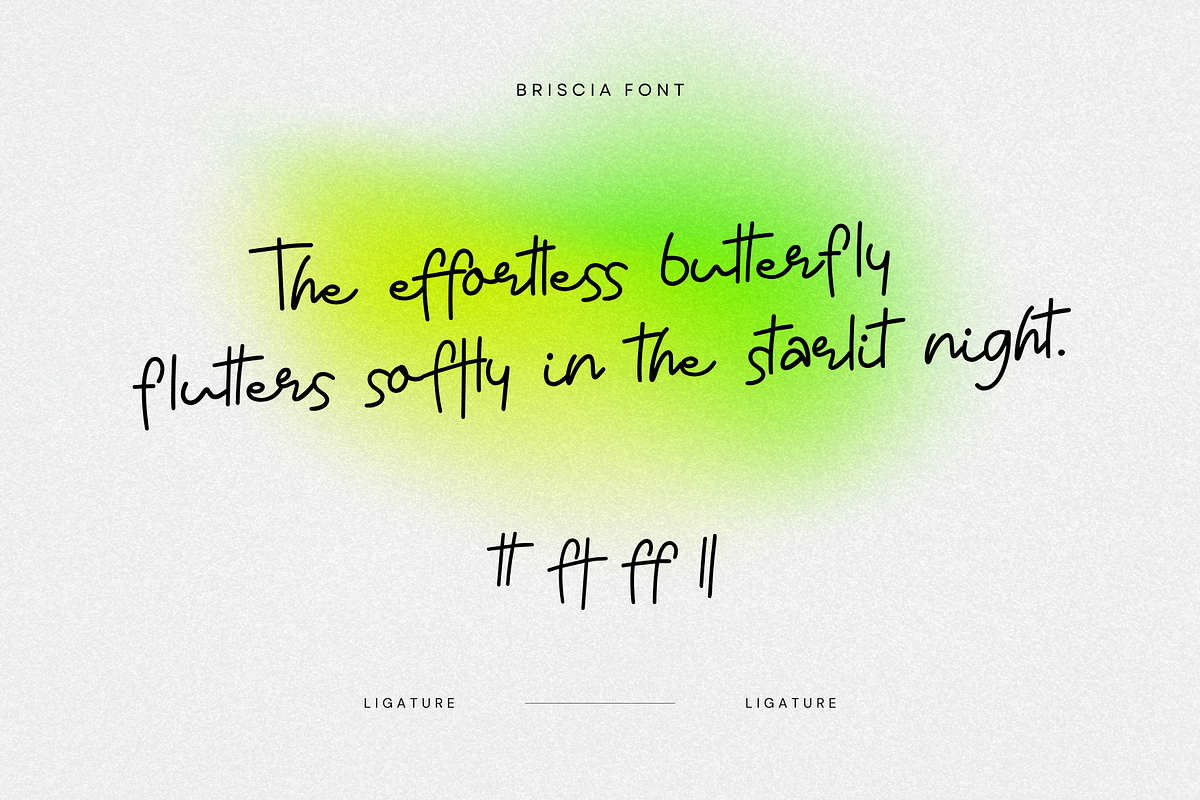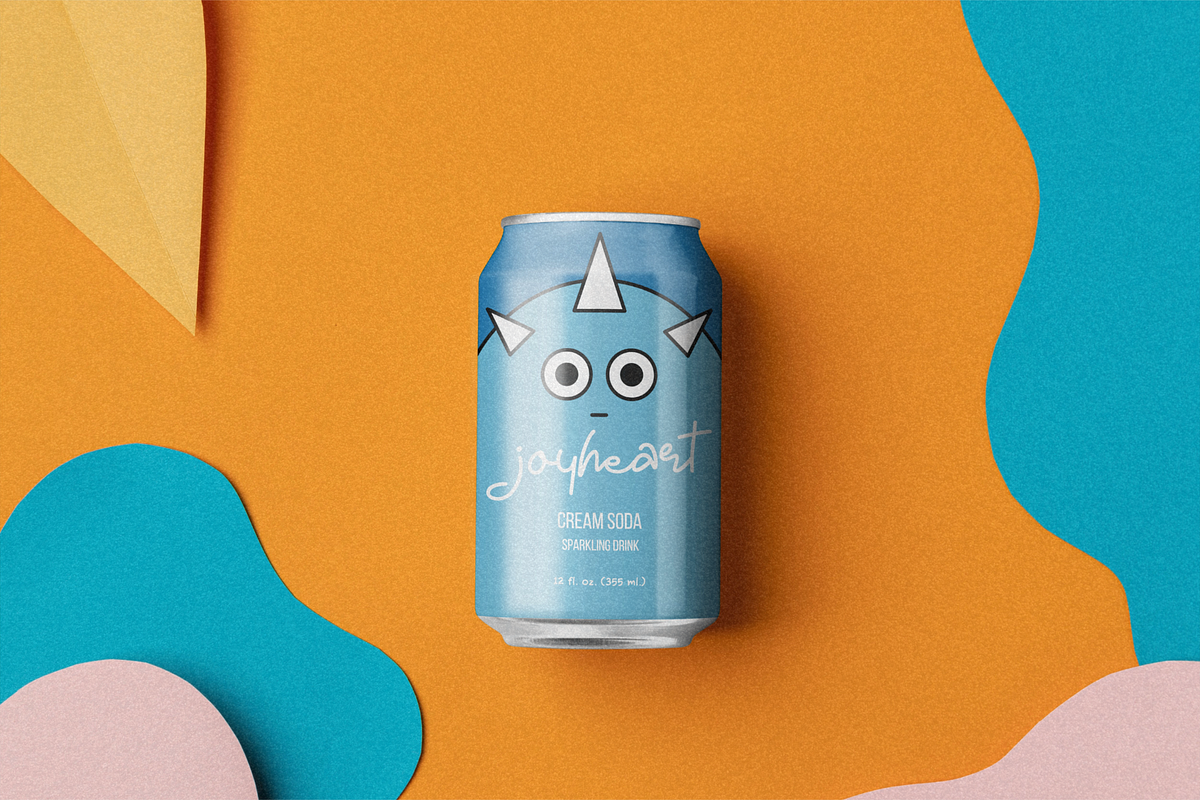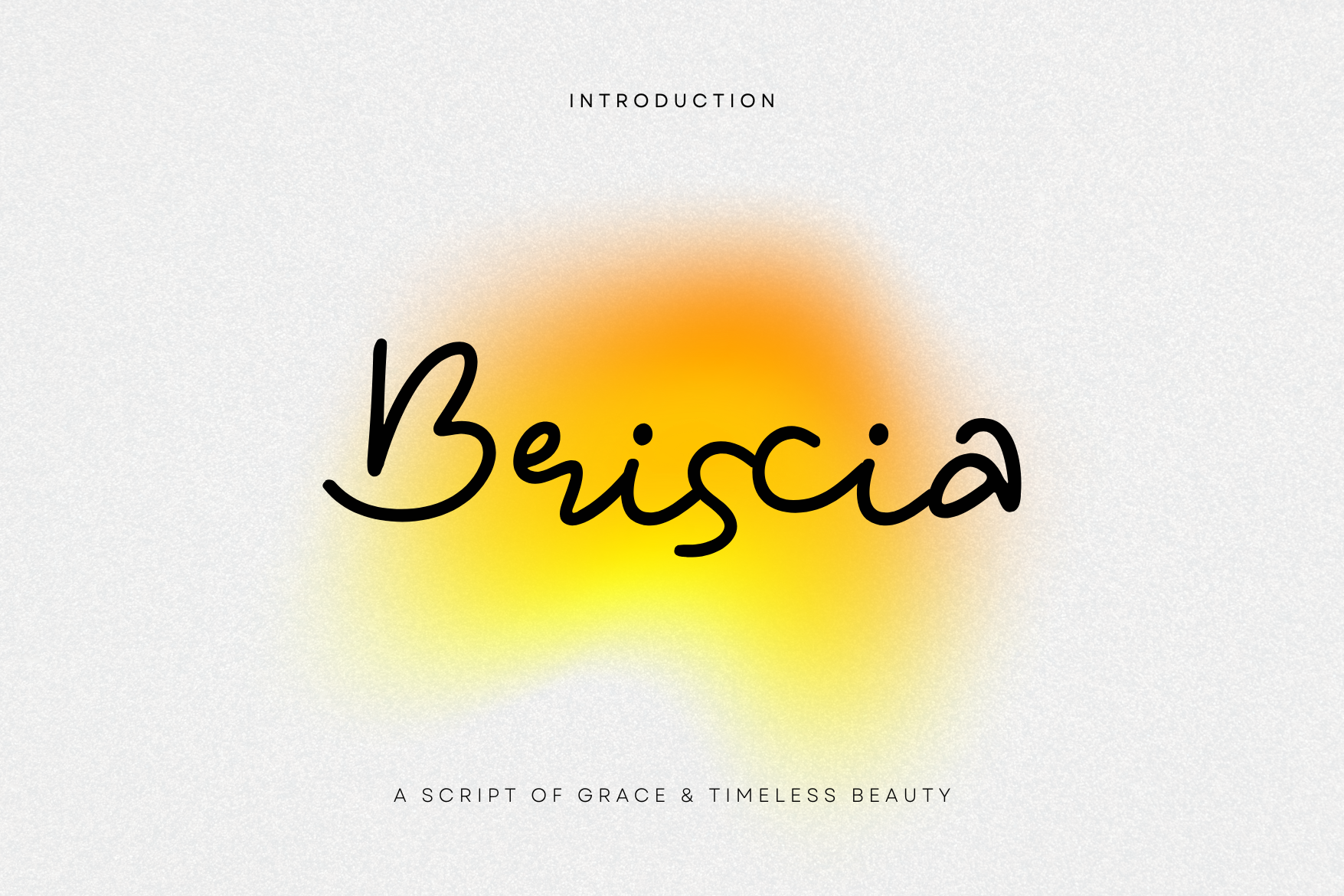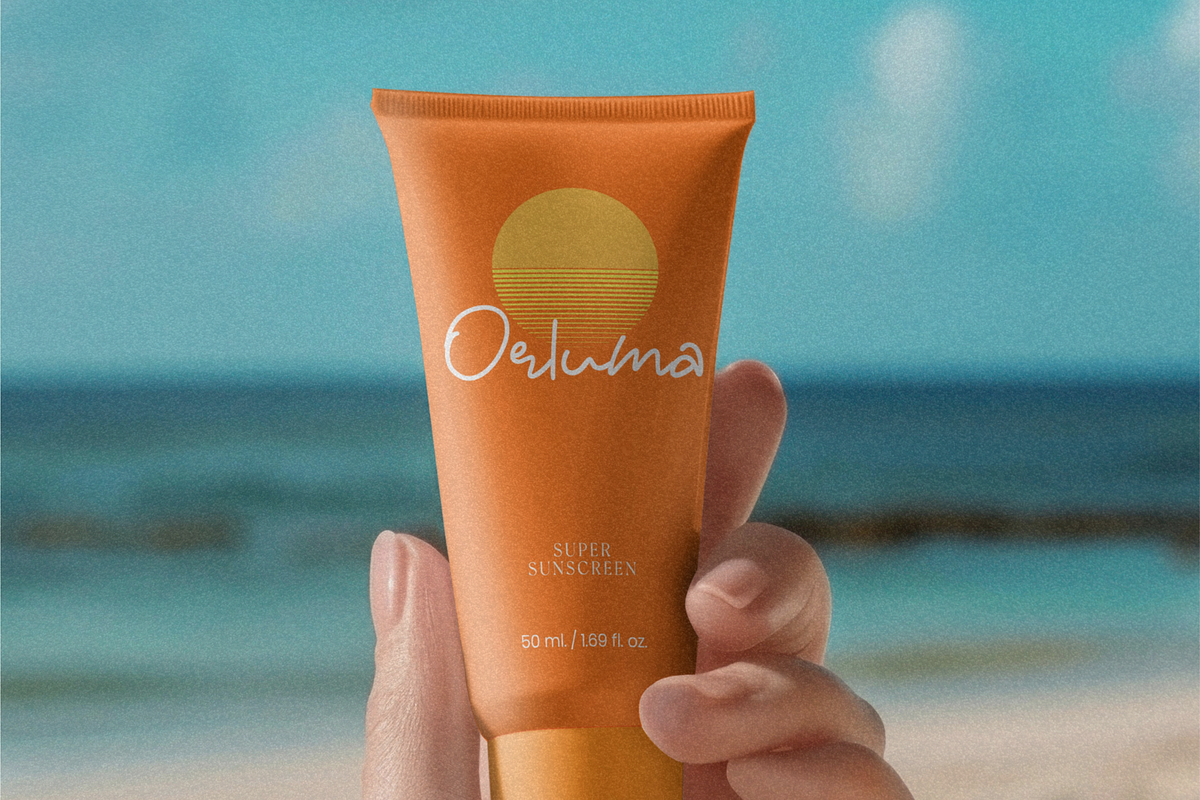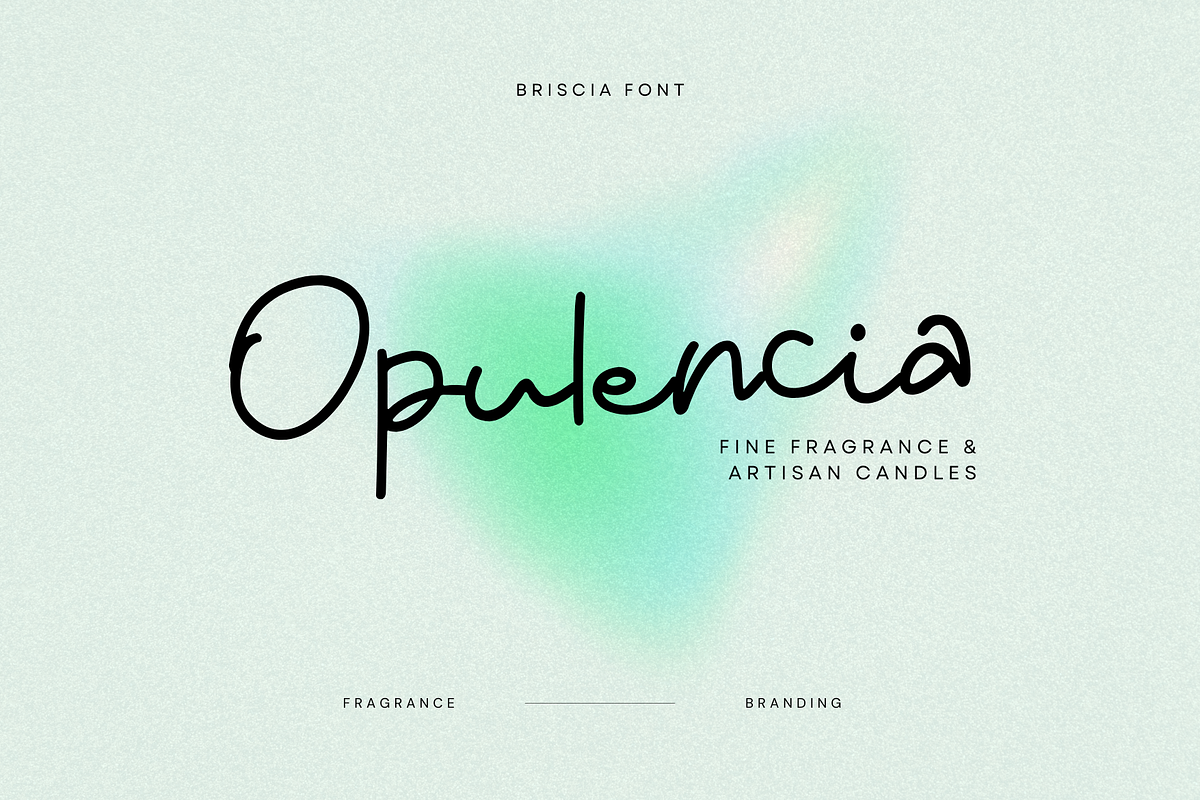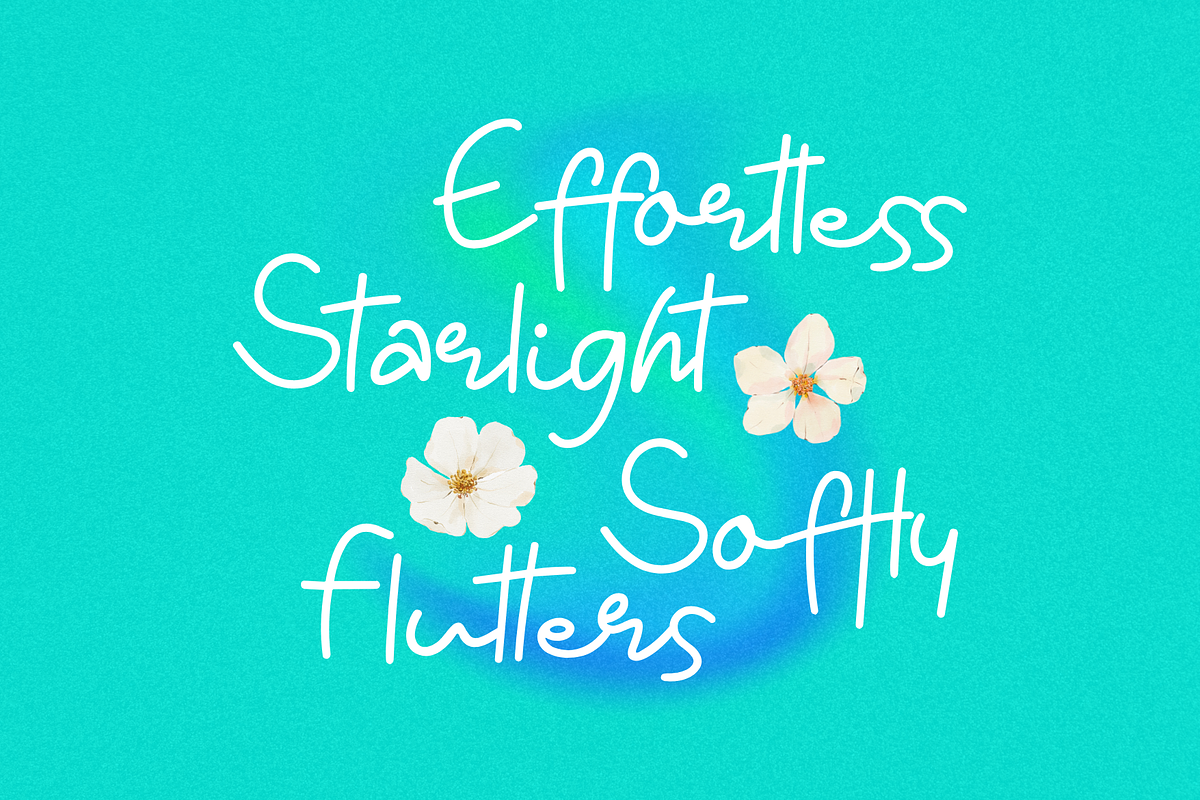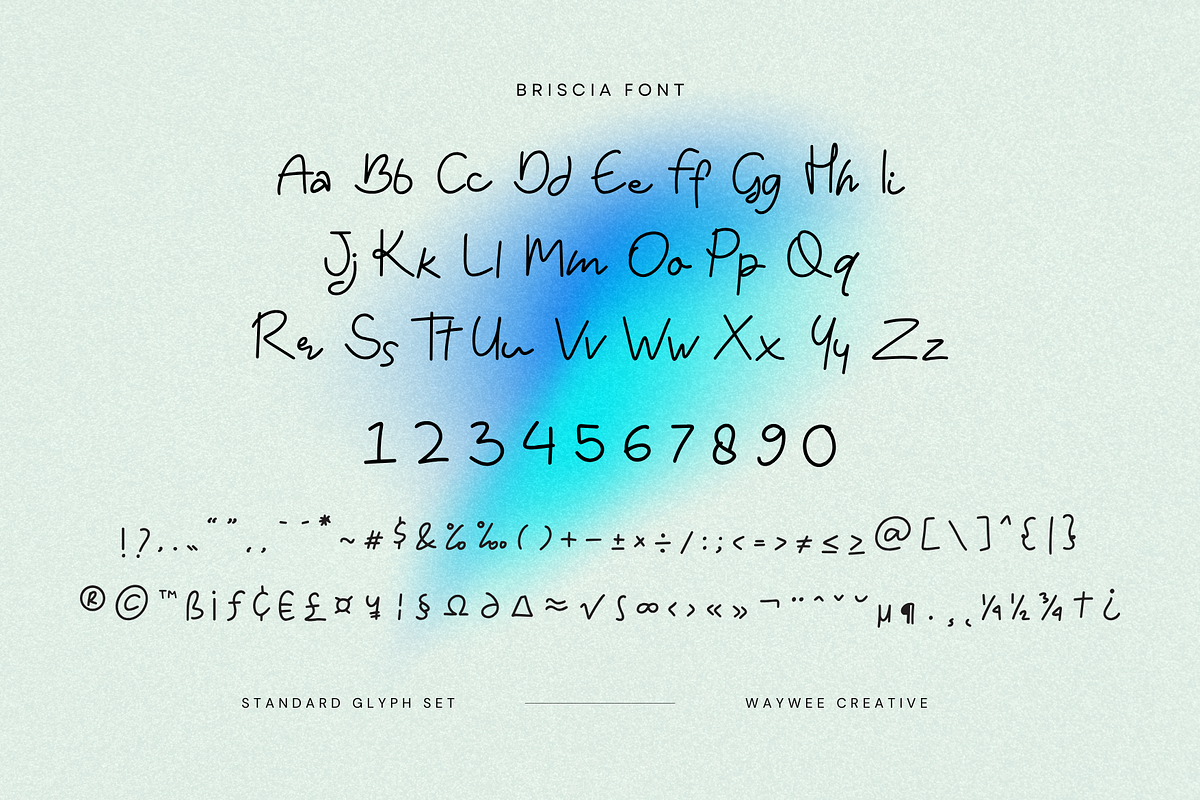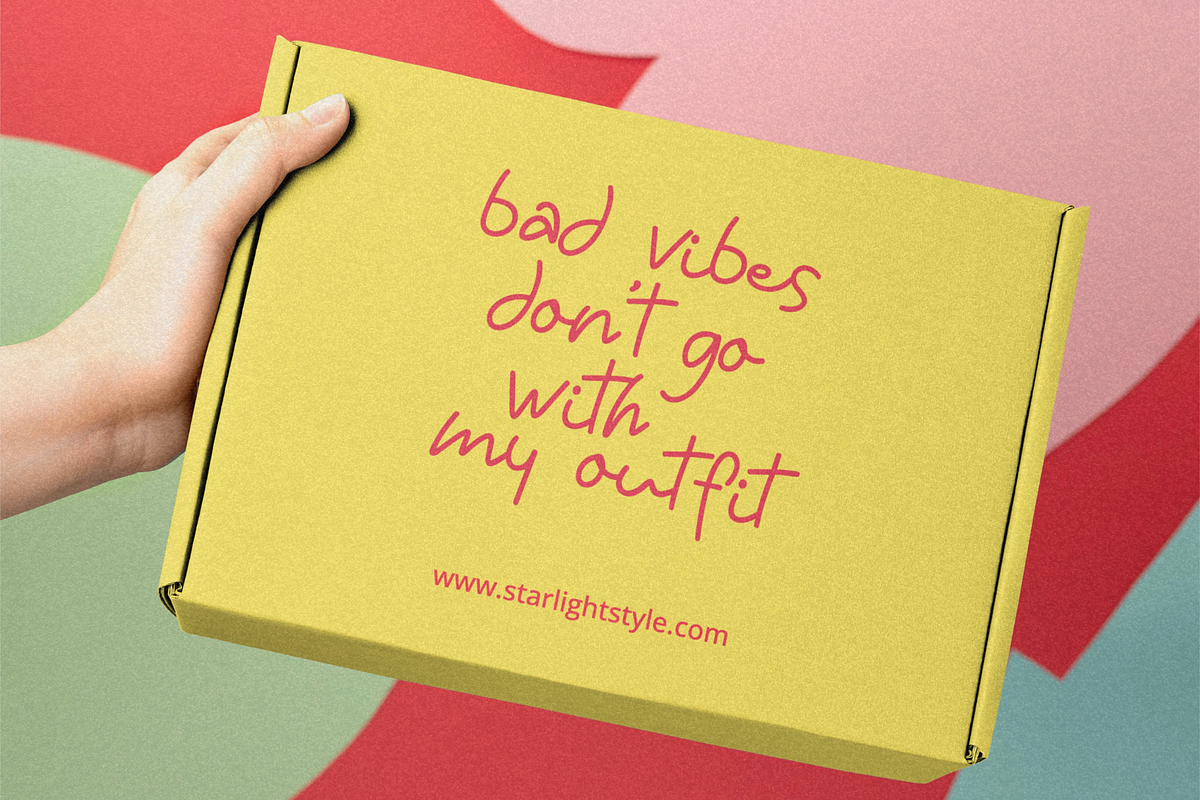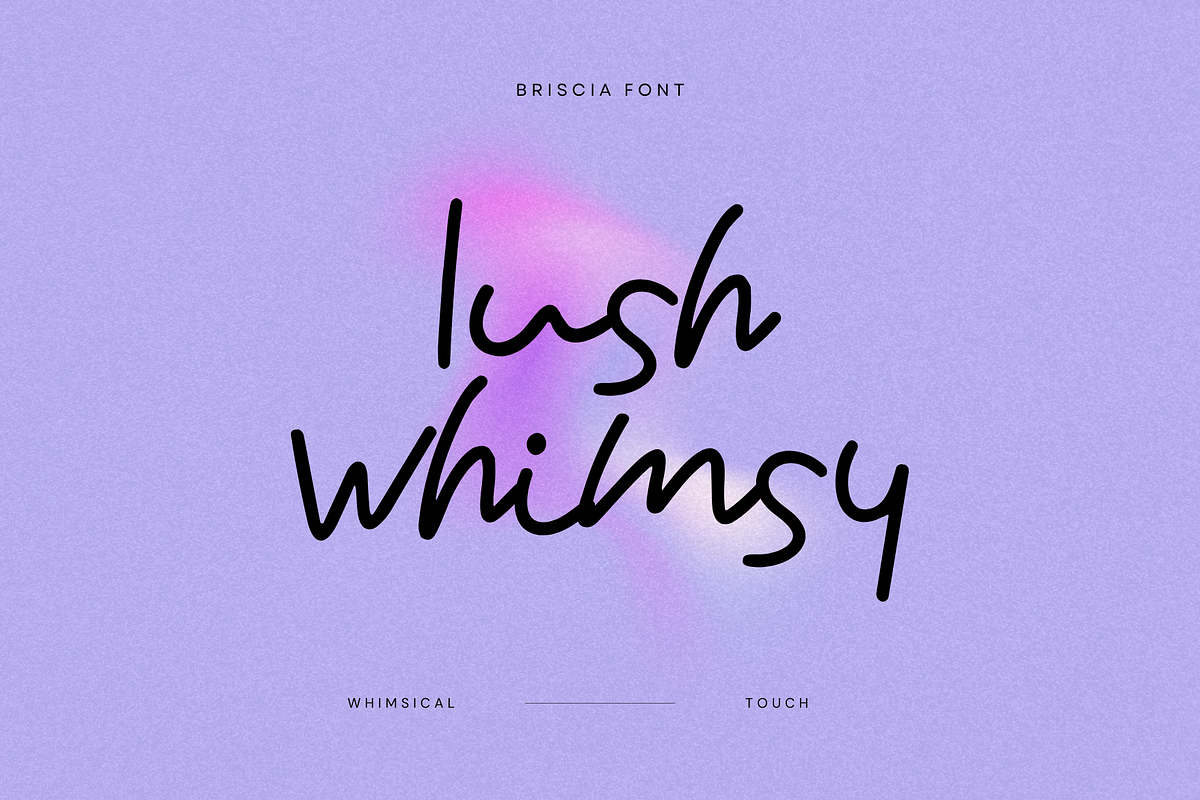
Briscia – A Graceful Script Font
✨ Briscia – A Script of Grace & Timeless Beauty ✨
Unleash the elegance of Briscia, a sophisticated handwritten script designed to flow effortlessly across your designs. With its smooth curves and dynamic strokes, Briscia embodies a perfect blend of grace, modernity, and charm, making it an exquisite choice for branding, invitations, and editorial designs.
- Fluid & Expressive – Briscia’s organic strokes bring an authentic handwritten feel, making every word look effortlessly stylish.
- Elegant & Timeless – Perfectly crafted for wedding stationery, luxury branding, and minimalist design, this script adapts to both classic and contemporary aesthetics.
- Versatile & Refined – Whether it’s for logo design, packaging, or social media graphics, Briscia adds a touch of sophistication to any project.
Step into the world of refined elegance with Briscia—where artistry meets effortless beauty. Ready to elevate your designs?
- 160 ligatures and alternate letters
- English language support